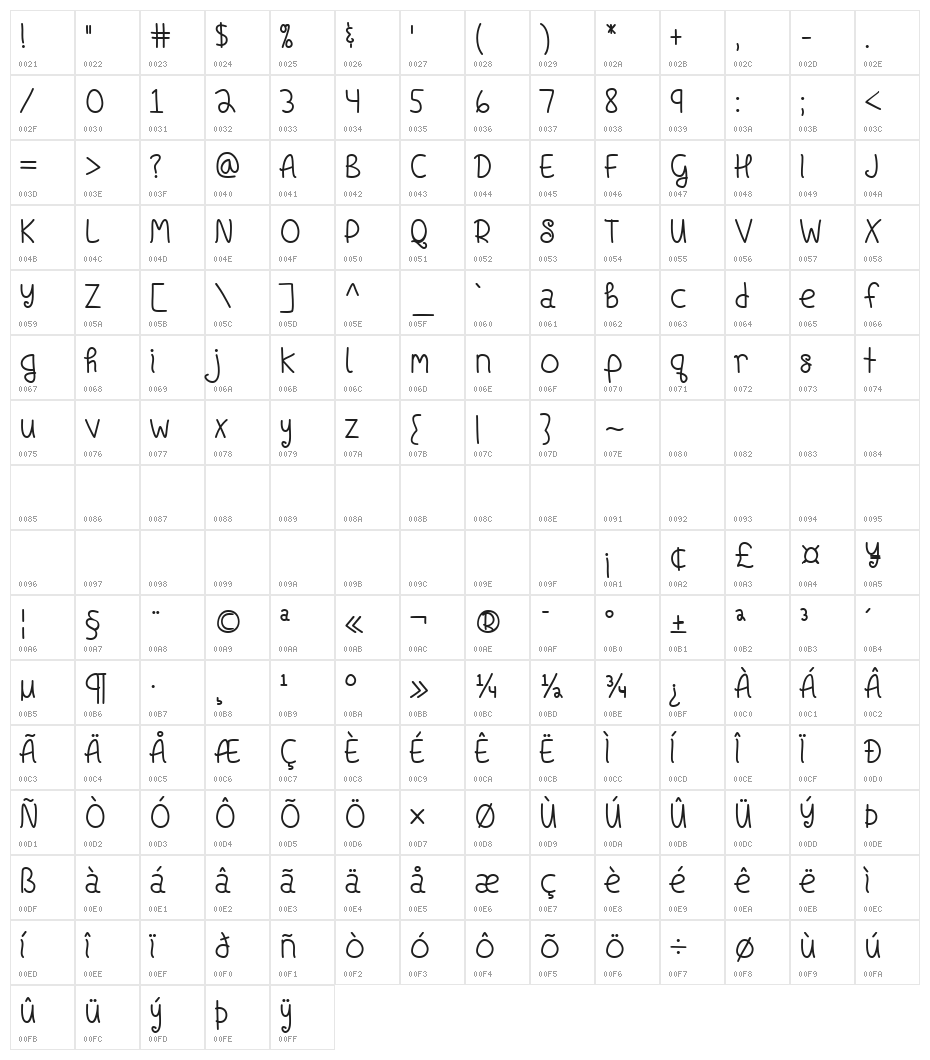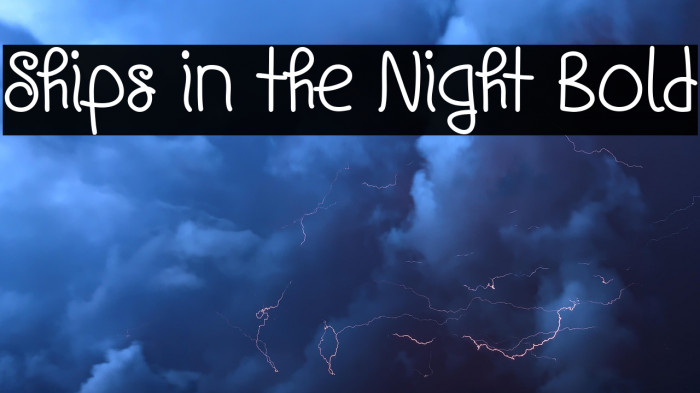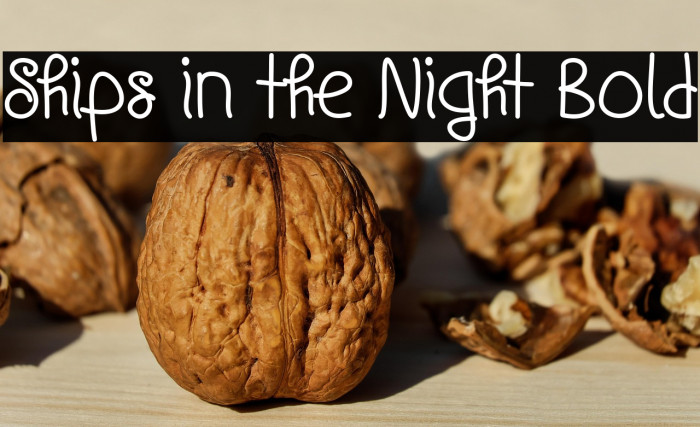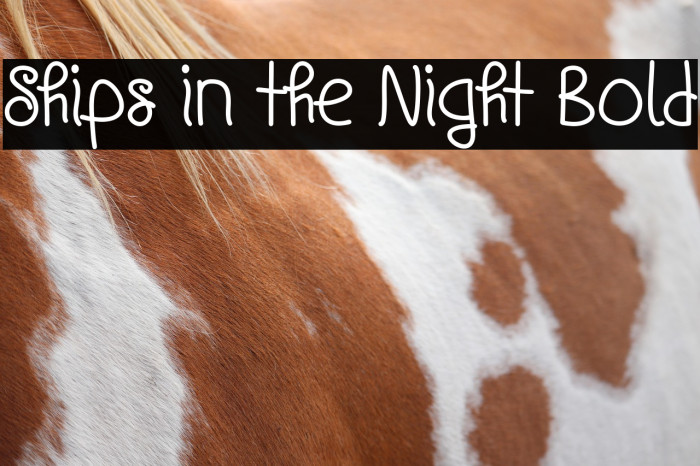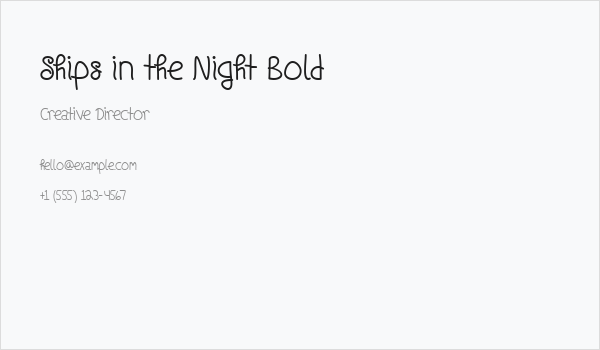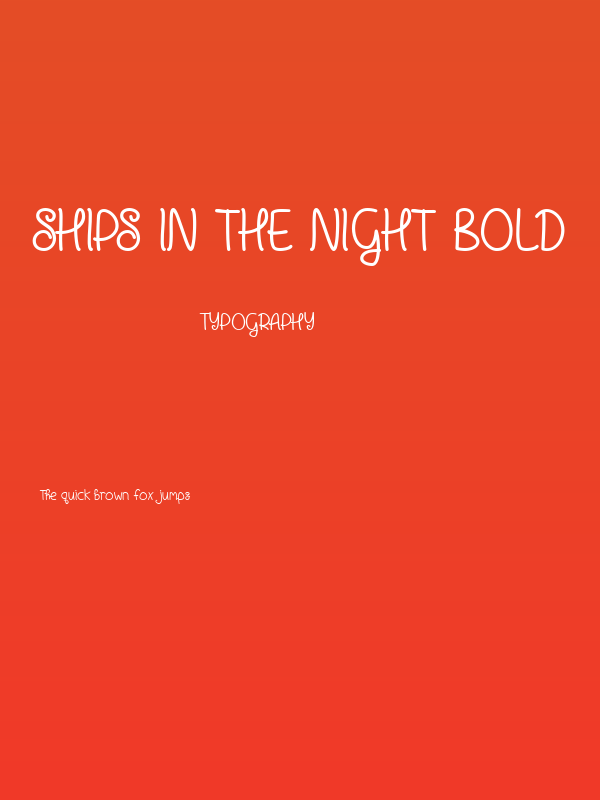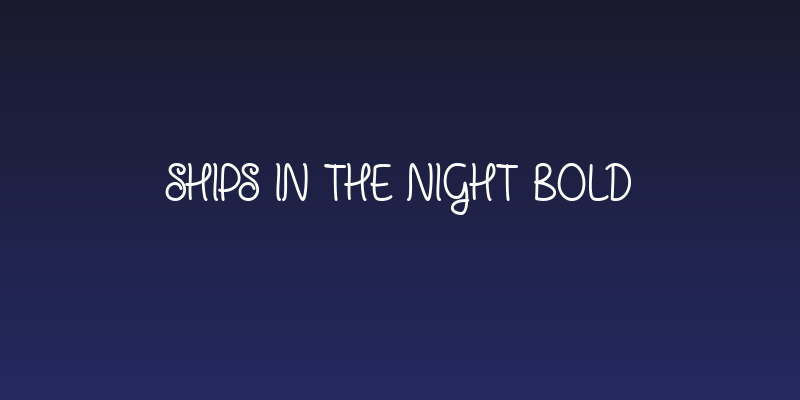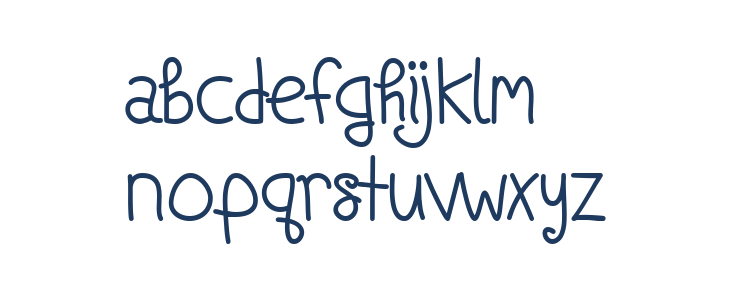
Ships in the Night Bold Font
Ships in the Night Bold Description
This playful and whimsical font features a handwritten style with a casual, friendly appearance. The letters are rounded and slightly irregular, giving it a personal and approachable feel. The strokes are consistent in thickness, providing a uniform look across all characters. The uppercase and lowercase letters maintain a cohesive style, with the lowercase letters exhibiting a slightly more playful curvature. Numbers and special characters are designed to match the overall aesthetic, ensuring versatility in various applications. The font's informal nature makes it ideal for projects that require a touch of personality and creativity.